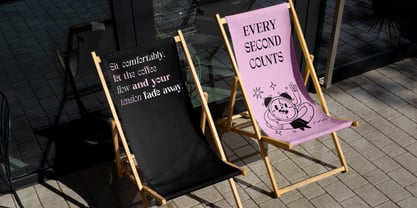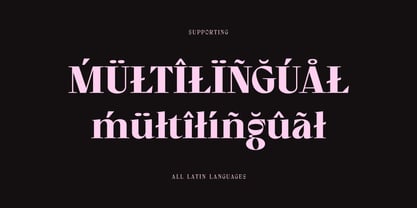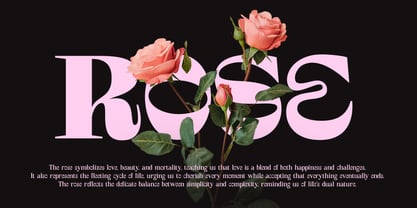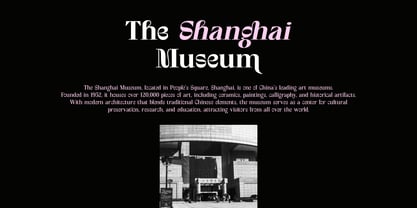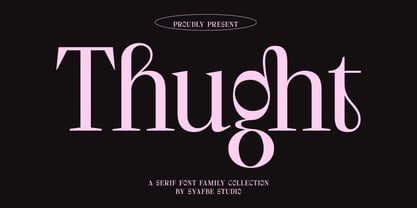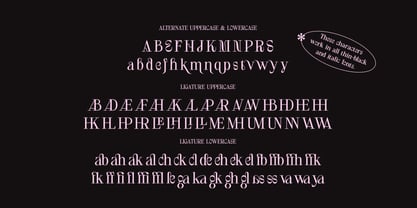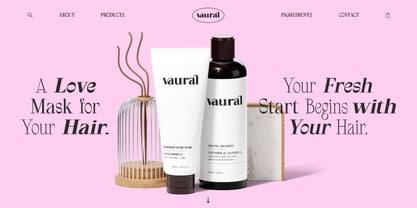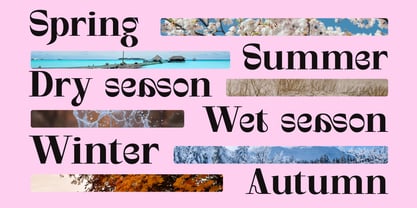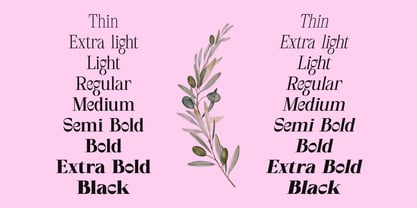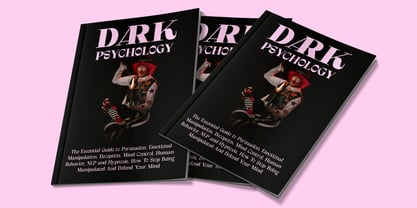
Thught
by Syafbe
The Thught Font Family was designed by Syafwan Mus and published by Syafbe. Thught contains 18 styles and family package options.
The Thught font is a standout serif typeface with an elegant, classy, and contemporary design.With smooth curves and distinctive bends on each letter, this font creates a unique and bold impression. Every detail of its characters is designed to offer a visually appealing and legible look, without sacrificing artistic beauty.
This font is highly versatile and can be used across various fields, from branding and editorial design to digital media. Due to its aesthetic appeal while maintaining clarity, Thught is suitable for a wide range of applications, from company logos to book titles and event posters. Its flexibility makes it perfect for both formal and casual projects, giving a luxurious yet dynamic feel to any design.
The deeper meaning of this font lies in how each typographic element blends modernity with tradition. While it incorporates serif elements reminiscent of classic designs, its curved shapes bring a fresh, standout vibe. This reflects a balance between honoring the aesthetics of the past and embracing the innovations of the present, symbolizing timeless creativity.